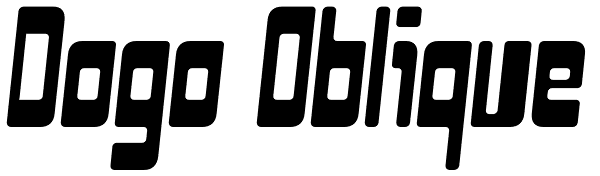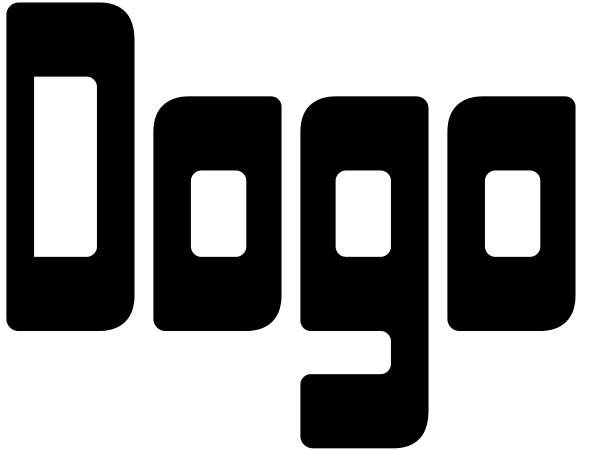
Dogo
Dogo (Spanish) is a type inspired by the shapes of the Bulldog dog breed originating from England. Her personality is described as playful and affectionate, despite the brave face.
Dogo Oblique
Dogo